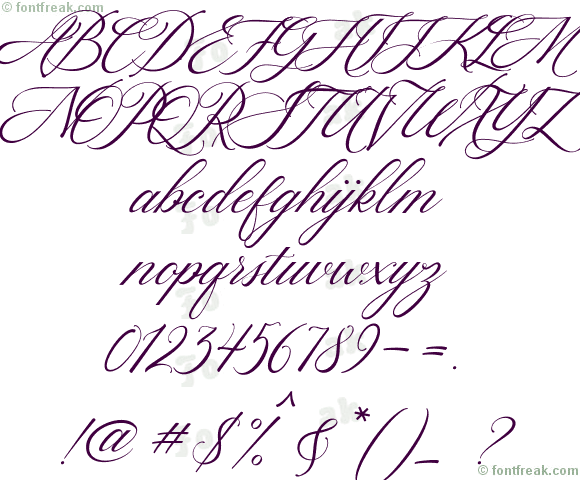
HelloBrideScript-Regular
About HelloBrideScript-Regular
HelloBrideScript-Regular by 50Fox Studio is a captivating handwritten script font that exudes elegance and charm. The font showcases a graceful flow, characterized by its smooth, sweeping strokes and delicate curves. The contrast in stroke weight adds a sense of sophistication, making it an ideal choice for designs that require a touch of class. The overall spacing between the letters is balanced, allowing for easy readability while maintaining the font's artistic flair. Decorative elements such as ornate swashes enhance its visual appeal, elevating any text it adorns.
This font is perfect for a variety of use cases. Wedding invitations benefit greatly from its romantic and whimsical style, creating an unforgettable first impression for guests. Additionally, HelloBrideScript-Regular is ideal for save-the-date cards, where the importance of the occasion is matched by the elegance of the typography. Small business owners can utilize this font for branding purposes, particularly in the wedding and event planning industry, to convey a sense of luxury and personalization. It’s also suitable for greeting cards and personalized stationery, appealing to content creators looking to add a unique touch to their products.
Target audiences for HelloBrideScript-Regular include graphic designers seeking to enrich their projects with a sophisticated script, small business owners looking for a memorable font to enhance their branding, and content creators interested in producing visually appealing materials.
What truly sets the HelloBrideScript-Regular font apart is its ability to blend artistic expression with practical functionality. This font captures the essence of special occasions while ensuring that your message remains clear and impactful. With its free download availability, HelloBrideScript-Regular is an accessible choice for anyone looking to elevate their design work.